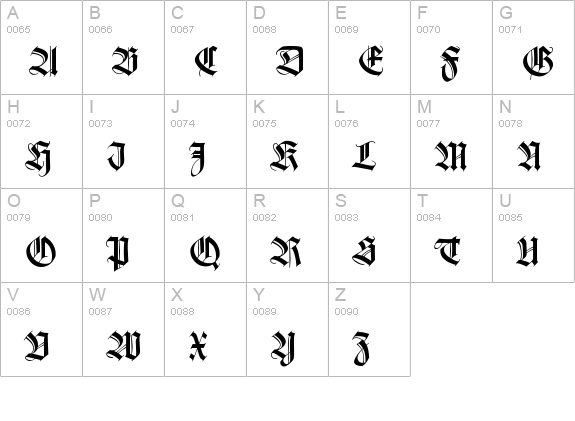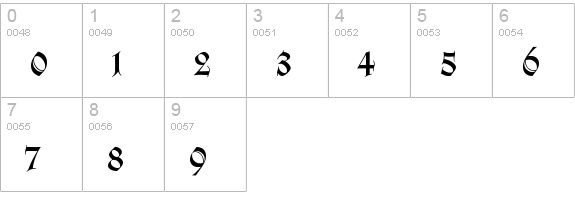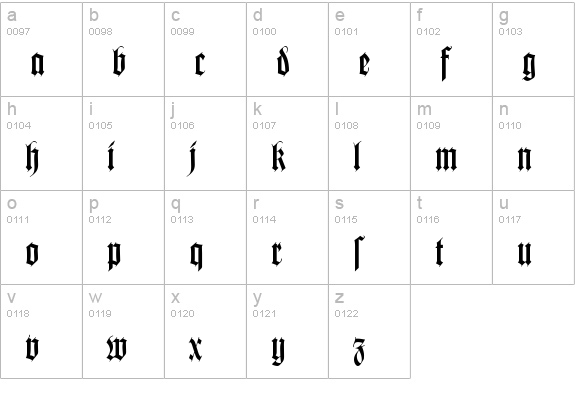
WilheKliGotDfr Font Details
Introducing WilheKliGotDfr, a captivating and expressive font that effortlessly combines elegance and modernity. This versatile typeface is perfect for adding a touch of sophistication to any project, whether it be branding, advertising, or graphic design. With its sleek lines and stylish curves, WilheKliGotDfr captures attention and leaves a lasting impression. But what sets this font apart is its accessibility. WilheKliGotDfr is not only visually stunning, but it is also completely free to download. Yes, you read that right - this remarkable font can be yours without spending a dime. It's a rare gem in the world of typography, where quality often comes at a hefty price. To get your hands on WilheKliGotDfr, simply visit FontsMarket.com, a trusted source for high-quality and diverse font options. There, you'll find this remarkable typeface waiting to be downloaded and utilized in your creative projects. FontsMarket.com is known for its commitment to providing designers and enthusiasts with a wide range of fonts, and WilheKliGotDfr is no exception. Once you've experienced the elegance and versatility of WilheKliGotDfr, you'll wonder how you ever managed without it. From captivating headlines to eye-catching logos, this font will elevate your designs and make them stand out from the crowd. Its distinct personality and refined aesthetic make it the perfect choice for those who seek to make a lasting impact. Don't miss out on this exclusive opportunity to add WilheKliGotDfr to your font collection. Visit FontsMarket.com today and discover the freedom and beauty of this extraordinary typeface. It's time to take your designs to new heights with WilheKliGotDfr - the free font that will leave a lasting impression.